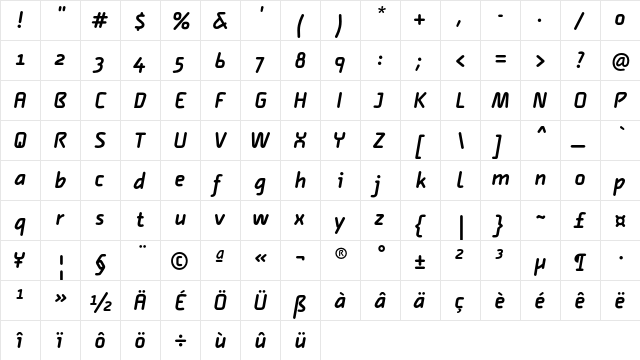
AlegaGreek-BoldItalic Regular
| Foundry | Siegfried Rueckel, published by FontShop International for the FontFont library |
Design Context for AlegaGreek-BoldItalic Typeface
AlegaGreek-BoldItalic takes a measured approach to typography — its balanced proportions and neutral character make it a reliable workhorse for both digital and print work. The slanted form adds forward momentum and visual energy. Its bold stroke weight gives it real presence on the page.
Pro Tip: Use AlegaGreek-BoldItalic for emphasis, pull quotes, and subheadings where its slanted energy can add rhythm to the layout.